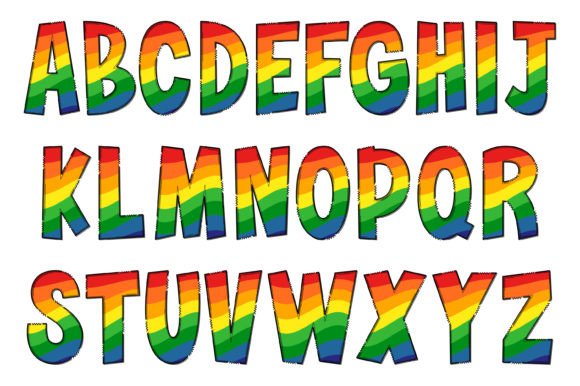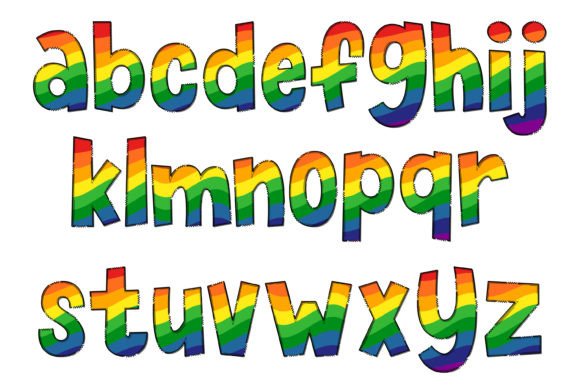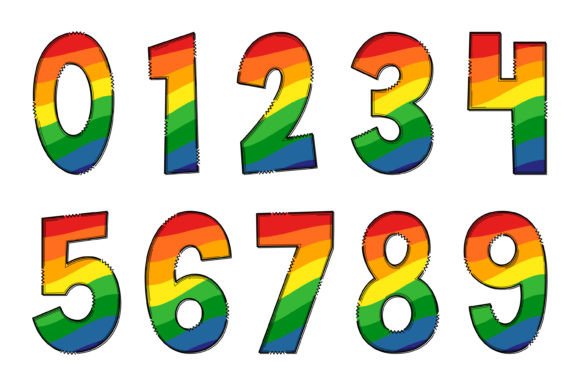
Introduction to Rainbow Wave Font
Imagine you’re designing a children’s book cover and you need a font that exudes playfulness and creativity. You start browsing through design resources, searching for that perfect combination of fun and whimsy. And then, you stumble upon the Rainbow Wave Font – a delightful, hand-drawn font that’s sure to bring a smile to your face.
As a designer, you know how valuable it is to have a high-quality font that can elevate your creative project. And the Rainbow Wave Font is no exception. With its transparent background and free download option, this font is a must-have for any design enthusiast. Whether you’re working on a poster, invitation, or greeting card, the Rainbow Wave Font is the perfect addition to your design arsenal.
Key Features of Rainbow Wave Font
- High-quality design resource perfect for creative projects, offering a unique and eye-catching visual effect.
- Features a transparent background, allowing for effortless layering and customization to suit your design needs.
- Resolution-independent, ensuring crisp and clear display on high-resolution screens and devices.
- Unique wave-like design element that adds a touch of creativity and dynamism to your design, making it an ideal choice for creative projects.
- Easy to use and customize, with a simple and intuitive design that makes it accessible to designers of all skill levels.
Honest Review: Rainbow Wave Font
I recently stumbled upon the Rainbow Wave Font and I must say, it’s been a game-changer for my creative projects. This free download has been a design resource I’ve been searching for, and I’m glad I found it.
- ✨ The high quality of the font is impressive, with crisp and clear lines that make it perfect for digital designs.
- ✨ The transparent background allows for seamless integration with any design element, giving me more creative freedom.
- ✨ The rainbow wave effect is a unique touch that adds a playful and eye-catching element to my designs.
- ⚠️ The font is quite large in size, which can make it difficult to use for smaller text elements.
- ⚠️ The rainbow wave effect can be overwhelming if used excessively, so it’s essential to use it sparingly.
Overall, I’m thoroughly impressed with the Rainbow Wave Font. Its high quality and unique design elements make it an excellent addition to my design resources. While it may have some limitations, I believe the benefits far outweigh the drawbacks.
Tips for Getting the Most Out of Rainbow Wave Font
Use the Rainbow Wave Font to add a touch of creativity to your designs. Experiment with different font sizes, colors, and combinations to create unique and eye-catching effects.
Common Use Cases for Rainbow Wave Font
Use the Rainbow Wave Font for creative projects such as social media graphics, posters, and flyers. You can also use it to add a touch of whimsy to your presentations and documents.
Yes, the Rainbow Wave Font features a transparent background, making it ideal for use on images or designs with complex backgrounds. This allows for seamless integration and customization of your design project.
Is the Rainbow Wave Font suitable for use in digital design projects?
Yes, the Rainbow Wave Font is a high-quality design resource that’s perfect for use in digital design projects, such as graphic design, web design, and UI/UX design. Its unique and creative style makes it an excellent choice for adding visual interest to your designs.